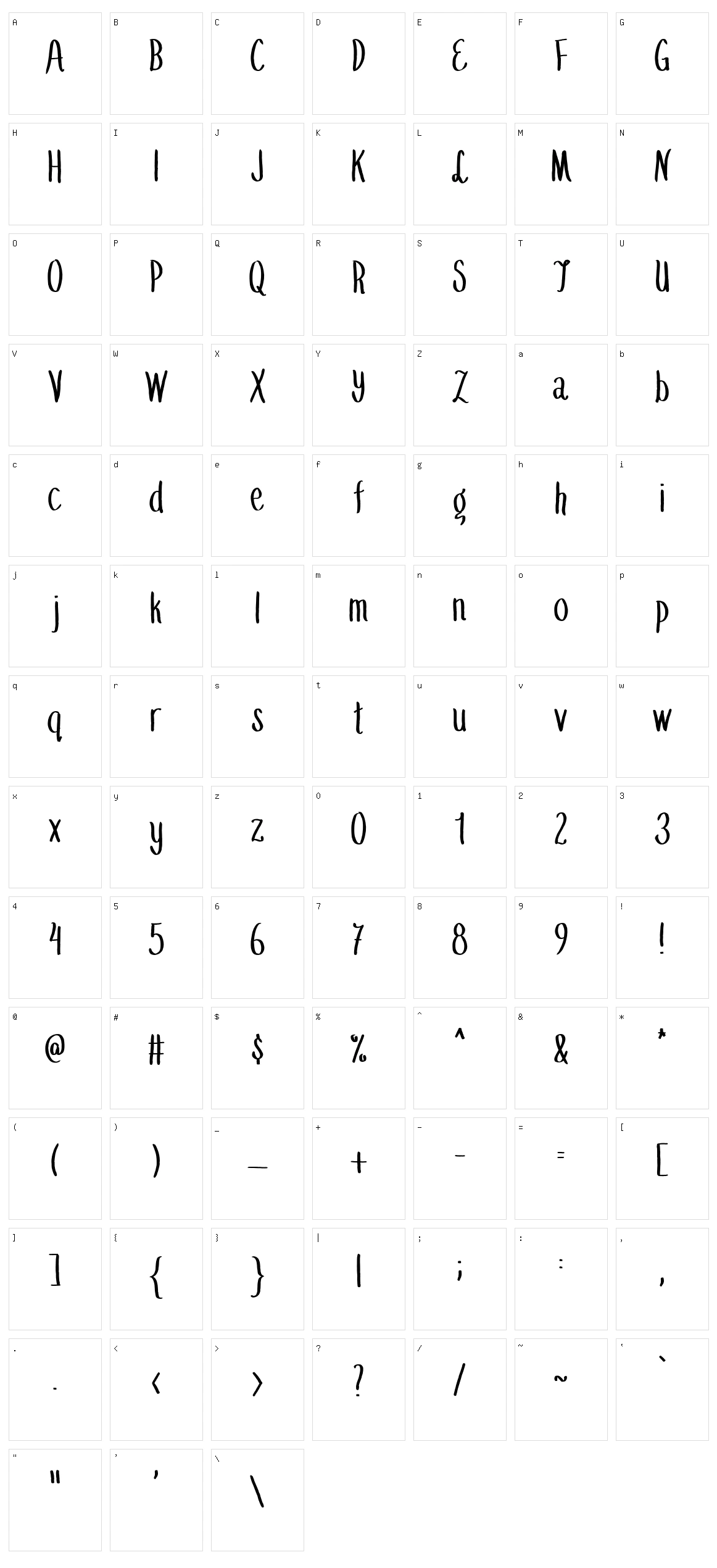
The free font Summer Fling is carefully designed by Joanne Abellar, showcasing a thoughtful balance of creativity and usability and falls under the Script font style. When you download the ZIP file, it contains only 59.66 KB of font files, making it lightweight and quick to download. Please review the license details below to understand permitted usage and distribution rights. If license information is not available, we recommend using this font for personal projects only or contacting the author directly for commercial usage permissions.